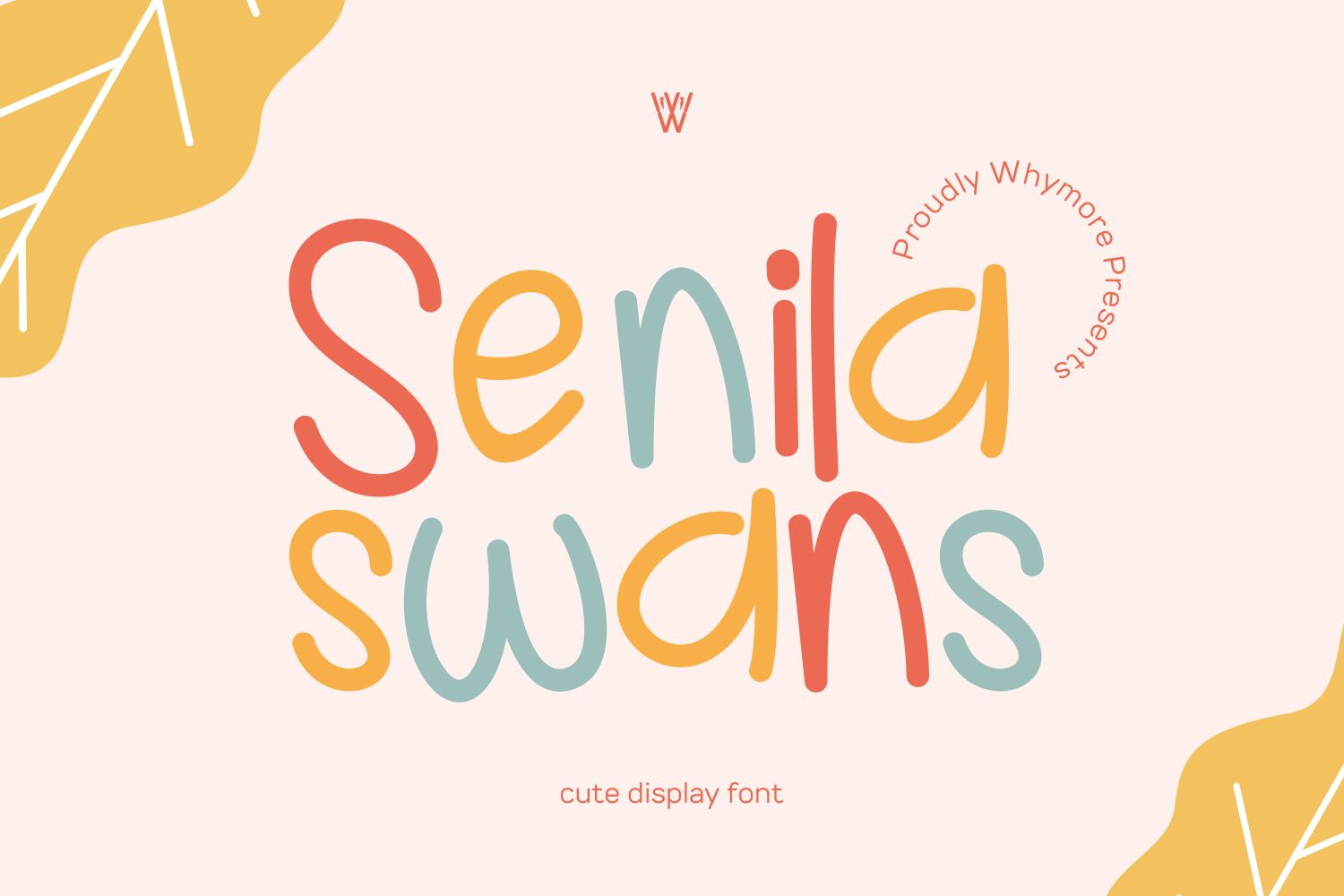
Senila Doodle Script Fonts
The Senila Script Font is a beautifully crafted typeface that radiates elegance and charm with its flowing lines and delicate strokes. Inspired by traditional calligraphy and modern design trends, this font exudes sophistication and versatility, making it perfect for a wide range of projects. Whether you’re creating wedding invitations, branding materials, or elegant signage, the Senila Script Font adds a touch of timeless beauty that captivates the viewer. Its fluidity and graceful appearance make it ideal for conveying a sense of refinement and style in your designs.